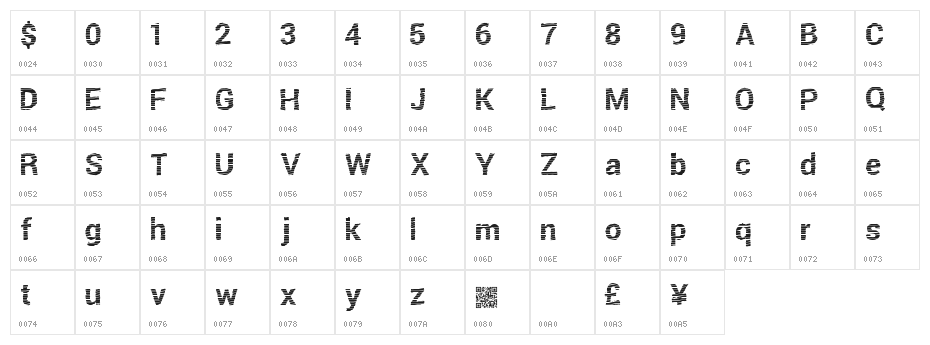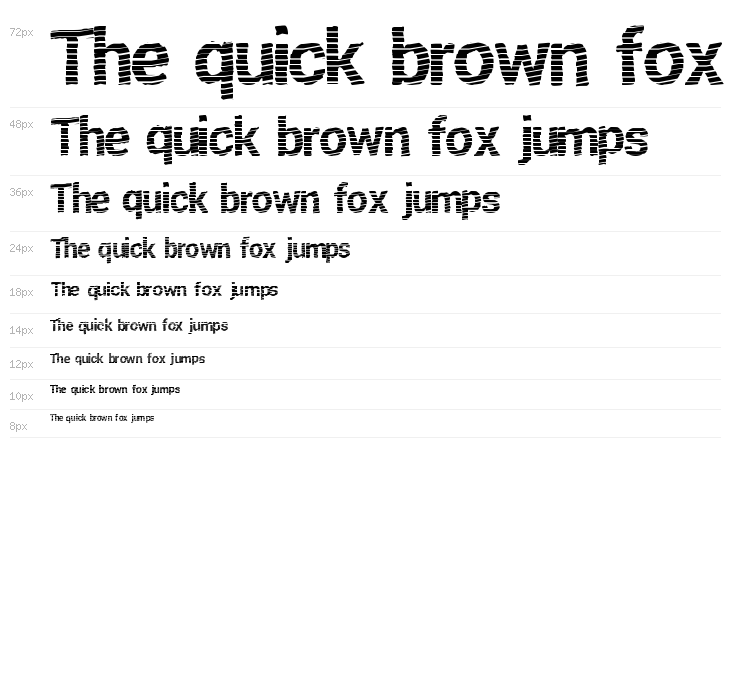
FreshTwist Font
FreshTwist Description
This font features a bold and dynamic design with a unique striped pattern running through each character, giving it a sense of movement and energy. The uppercase and lowercase letters maintain a consistent width, creating a harmonious look. The numbers and special characters follow the same style, ensuring uniformity across all elements. The font's distinctive style makes it stand out, while its boldness ensures readability even at smaller sizes. The striped effect adds a playful yet modern twist, making it suitable for creative projects that require a touch of flair.
| Proposed Projects | Ideal for branding, posters, and headlines that need a creative and energetic touch. |